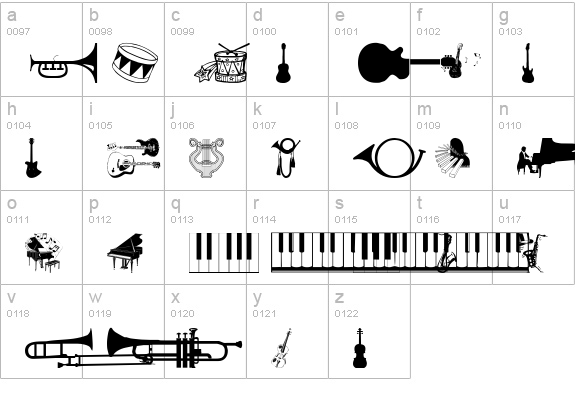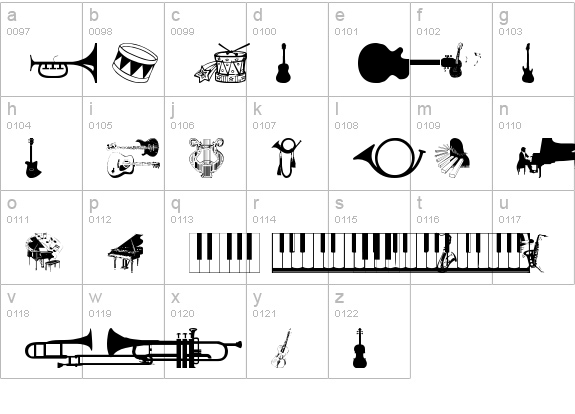
wmmusic1 Font Details
The wmmusic1 font is a stylish and versatile typeface that exudes a sense of creativity and rhythm. With its unique design and playful curves, this font is perfect for projects that require a touch of musical flair. Whether you're creating posters for a concert, designing album covers, or crafting music-themed invitations, wmmusic1 is sure to make your text stand out. Best of all, wmmusic1 is completely free to download at FontsMarket.com. That's right, you can enhance your designs with this fantastic font without having to spend a dime. So why wait? Add a touch of musical magic to your projects today with wmmusic1 font!